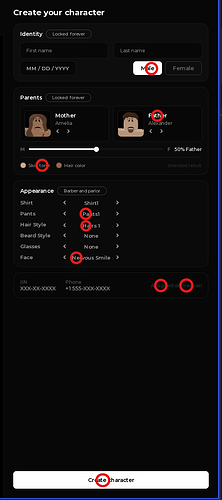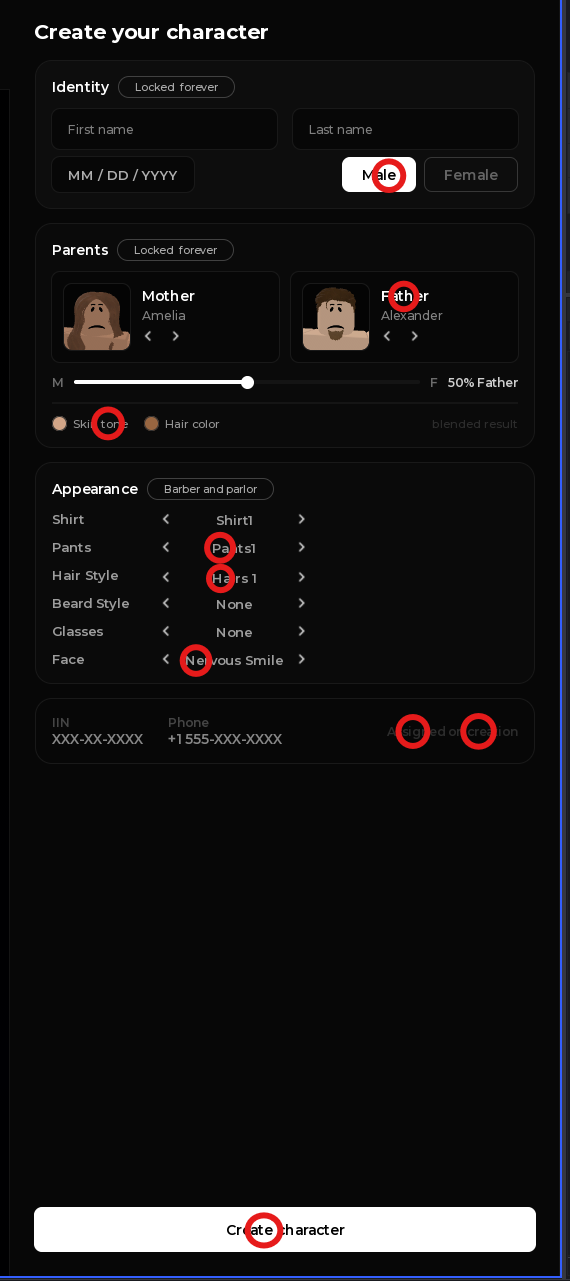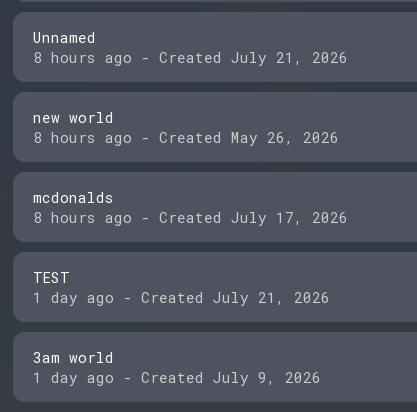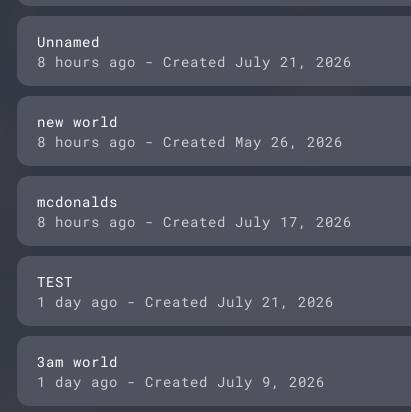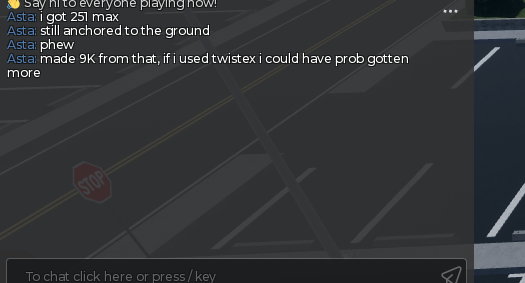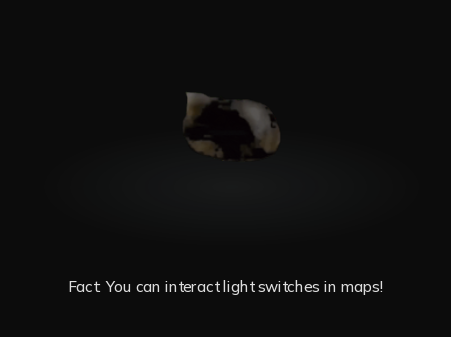
New font rendering issue after latest update
In the latest version, font rendering seems to have changed and no longer shows text normally.
This is on the new version:
(Summary debug menu opened with Shift + F5)
Notably, the letter “m” collides with the letter “s” in “msec”
(Font: Roboto Mono Regular at size 18)
Notably, letters are spaced incorrectly
This seems to be a widespread issue (it doesn’t only happen to me). My channel is production.
Expected behavior
This seems to occur at random when launching the app with the issue sometimes not occuring. The channel is the same in all cases.
Intended font rendering:
Notice how unlike above, the text is correctly smoothed/antialiased, spaced correctly and shows at the correct size.
I, too, am experiencing this with the Roblox desktop client. If it helps, I’ve conferred with more of my friends about this anomaly and realized that not all of us (who also use the Roblox desktop client) have actually been affected by it.
Edit: as my friends are receiving the most recent update to the Roblox desktop client, their chats are now being affected by this issue itself.
The spacing between letters is very strange. ‘at’ in “that” seems to be very close together. Chat in general just looks really odd.
Same. Just look at these ugly fonts :sob::sob::sob: kerning is messed up. And also they look so pixelated.
Font name: Mulish
I have had the same exact issue. I was trying to figure out if this was an only me issue since I also started to notice that spacing with fonts and font rendering in general just looks horrible now and my UI’s look a little bit off.
I recently uninstalled Roblox to see if that would fix the issue, but it did not. This has been an issue since my Roblox Client and Roblox Studio has updated a few days ago.
I am currently running Windows 11 25H2, but I do not seem to have this issue on my phone which is a Pixel 10 Pro.
I have noticed this a lot on the Inter font, it’s happening to me on studio too.
It looks like it might be related to this bug:
this issue has made the fonts look so junky, almost disgusting to look at. has there been a response from the staff team?
Been having the same issue for a few days now, extremely annoying since I work with UI and I cannot reliably design around text because of this issue.
I thought I was crazy
Y’all gonna fix this or not? Extremely hard to read in-game, and making UI’s is hard and annoying
This issue is still ongoing and has been for multiple weeks. Will we get any update on this? It makes text terrible to look at in certain fonts and sizes.
related thread: Font spacing issues.
i thought i lost my mind
I just realized they basically told us to suck it up, and they don’t plan on fixing it… so…
Do you use a 1080p screen as well? A higher DPI screen that I have seems to be okay for the weird text rendering, but I cannot imagine we’re expected to use a higher DPI screen just to work around this issue. Hopefully they’ll patch this soon, it’s so noticeable for me
Just a follow up. This bug is still not fixed yet. and oh my god this- THIS. it’s unbearable. Please Roblox fix this :pleading_face:
“in terac t light swi tches”
Font used: Mulish, Weight=Medium, FontSize=18
2560x1440, but it happens across all, even so this shouldn’t be happening at all obviously
lmao the more I play, the worse it gets. Looks like someone put full-on spaces in there